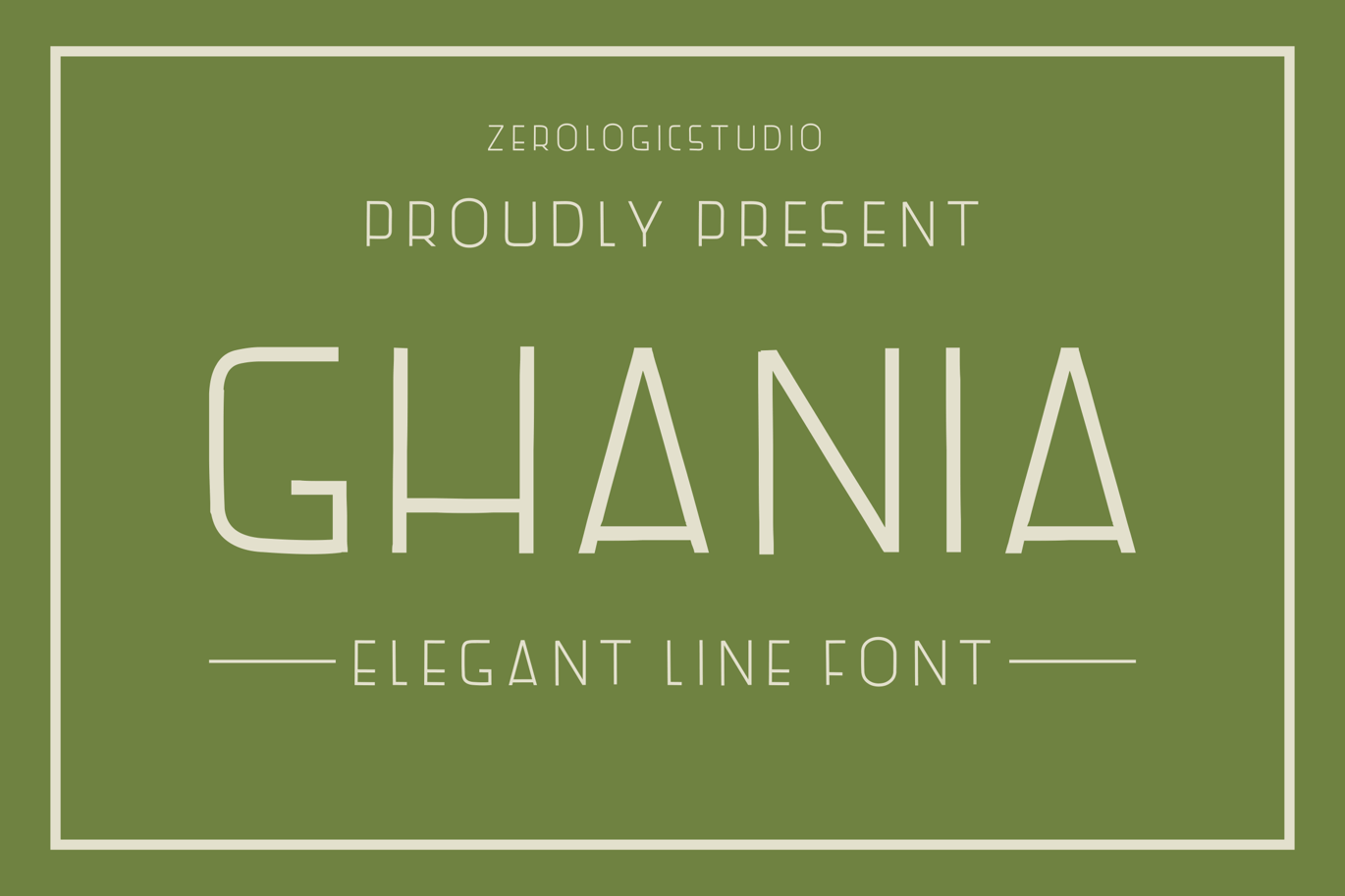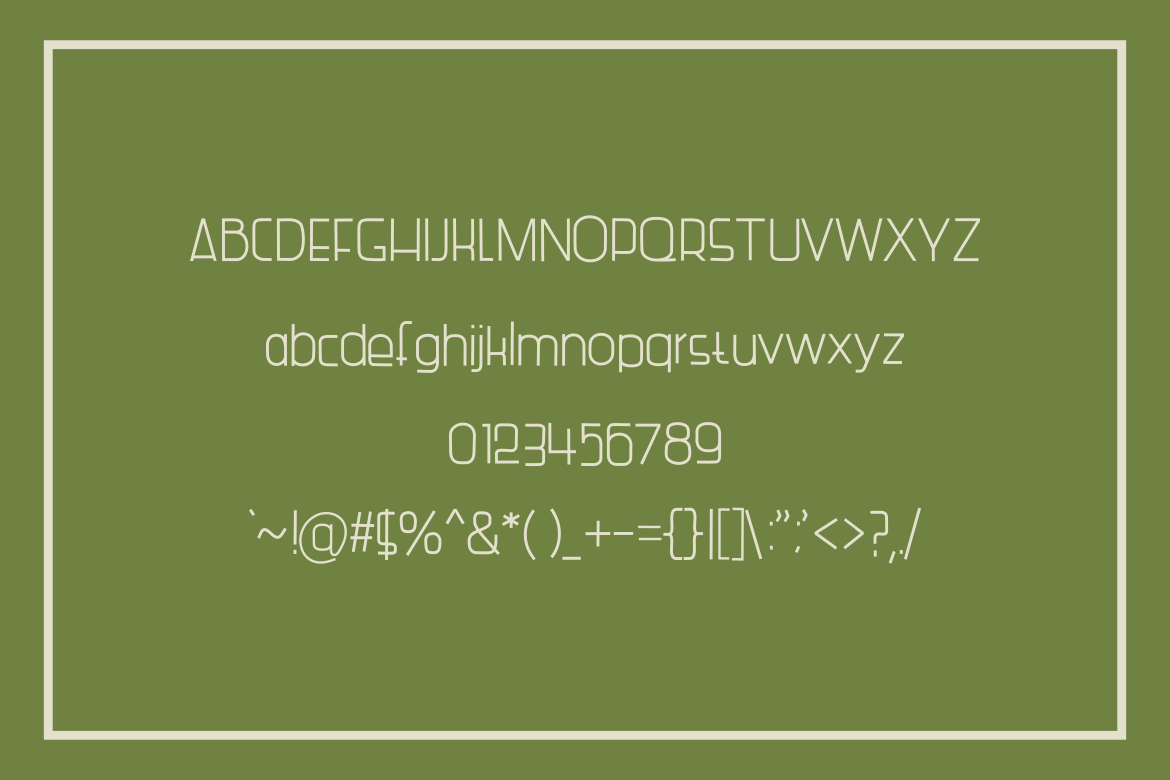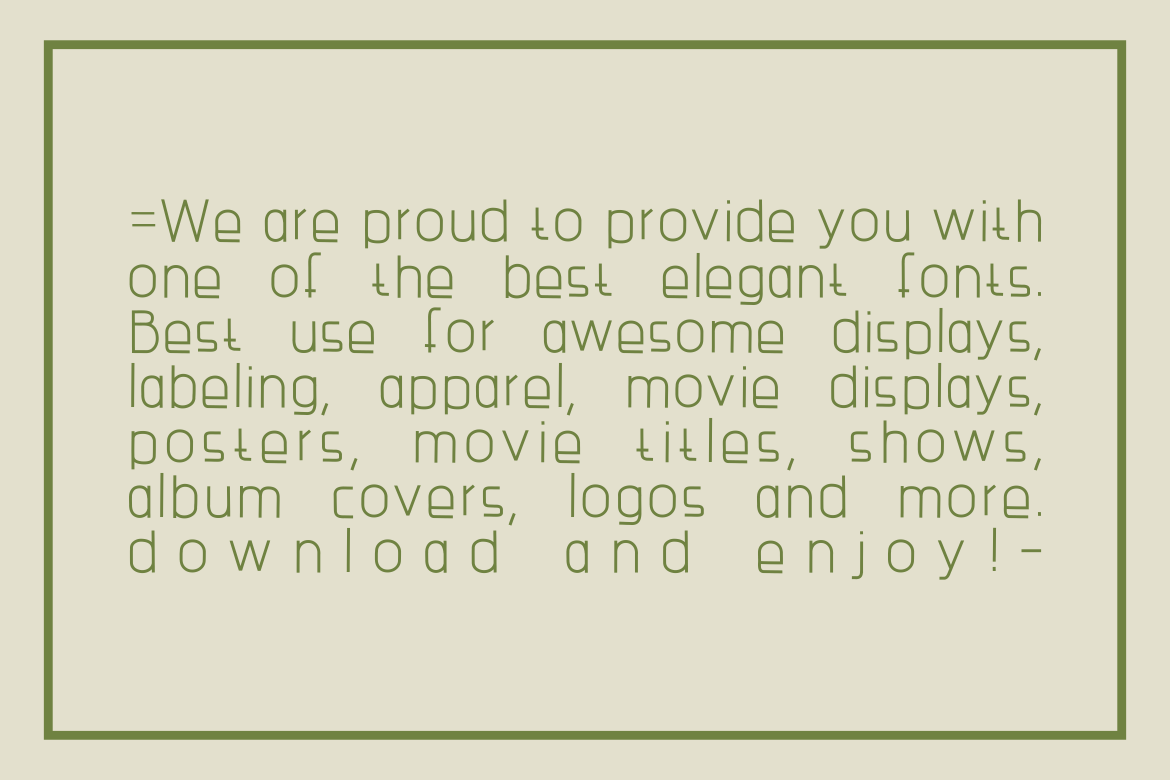
Ghania Elegant Font
We are proud to provide you with one of the best elegant fonts. Best use for awesome displays, labeling, apparel, movie displays, posters, movie titles, shows, album covers, logos and more.
- UPPERCASE & LOWERCASE